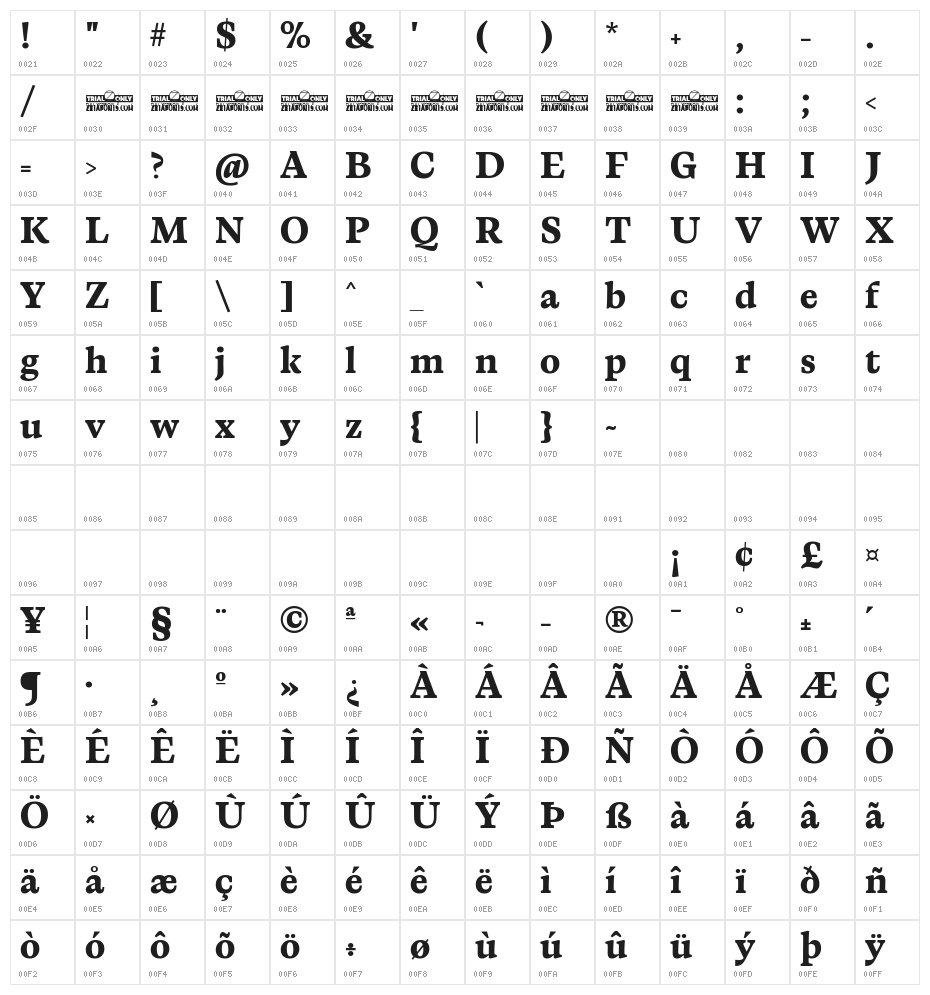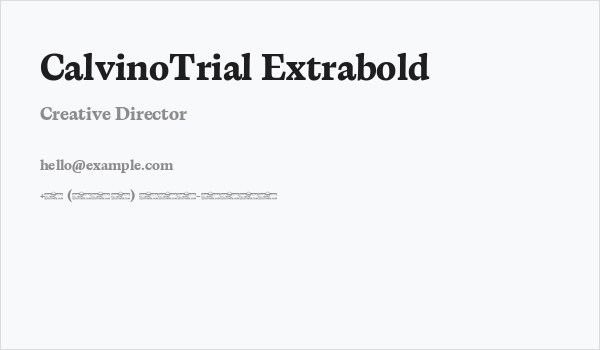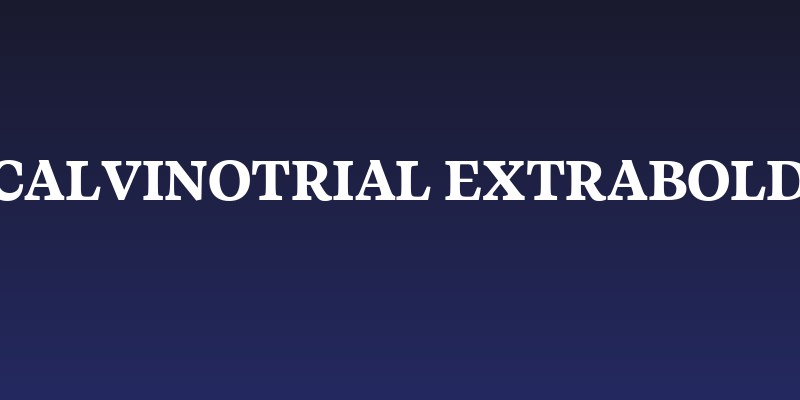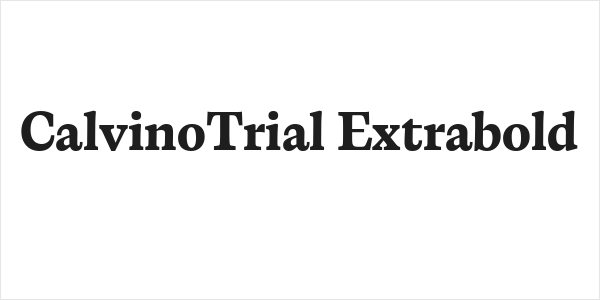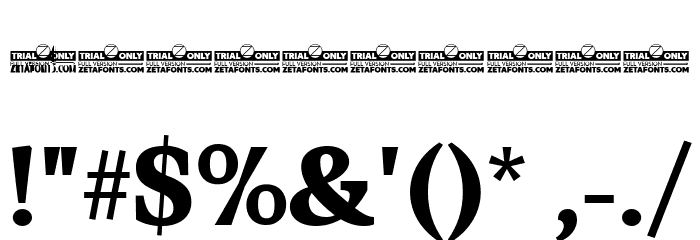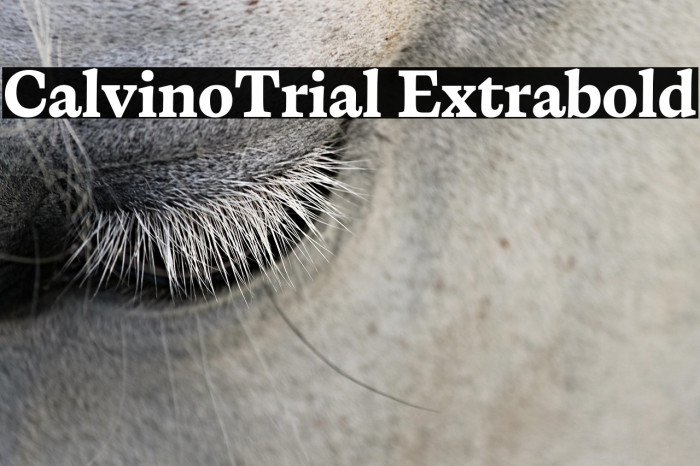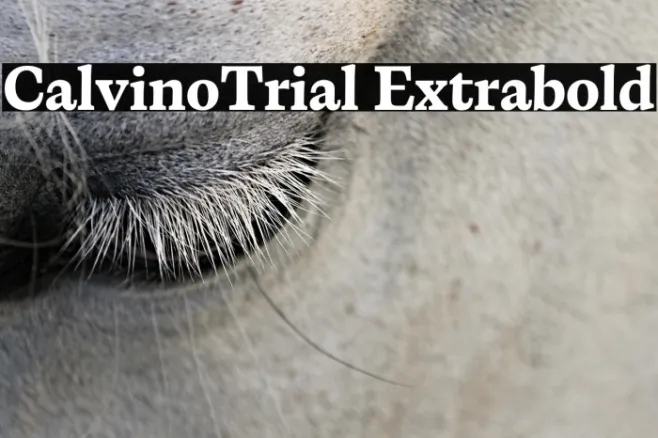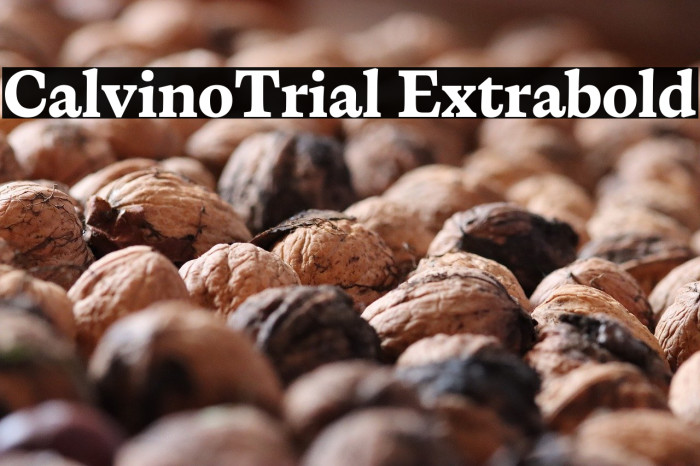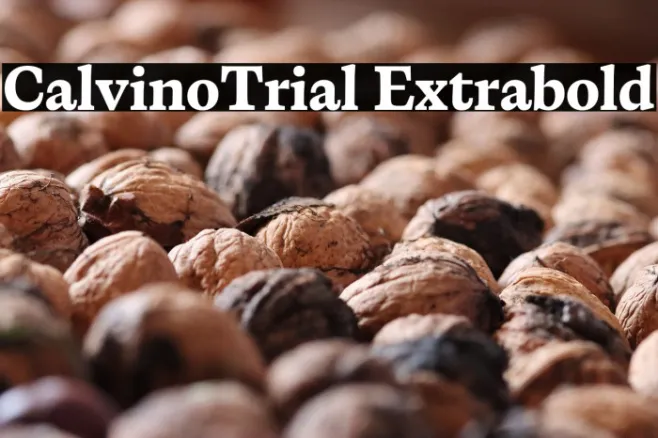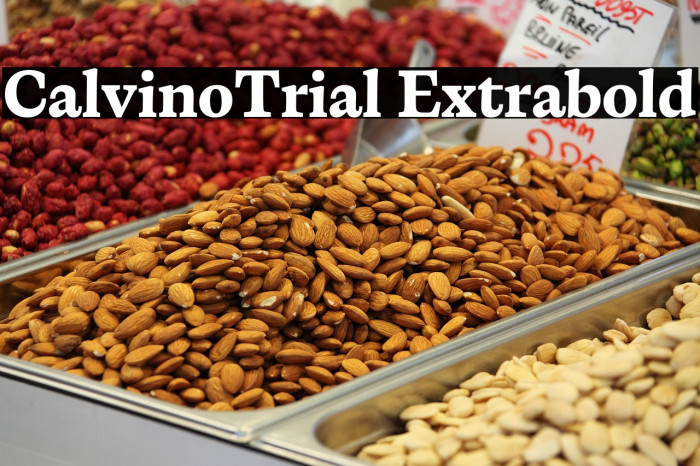
CalvinoTrial Extrabold Font
CalvinoTrial Extrabold Description
This font features a bold and commanding presence with its thick strokes and strong serifs. The uppercase letters are robust and assertive, while the lowercase letters maintain a consistent weight, providing a harmonious balance. The numerals are clear and easily distinguishable, making them suitable for various applications. The special characters are well-integrated, maintaining the font's overall bold aesthetic. This typeface exudes a classic yet modern feel, making it versatile for both traditional and contemporary design projects.